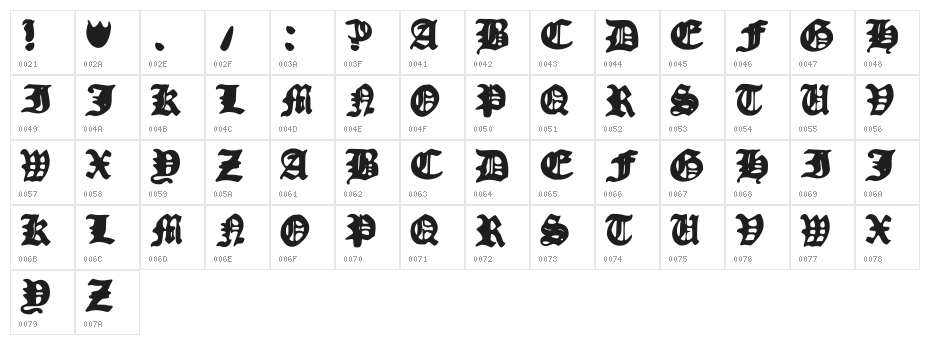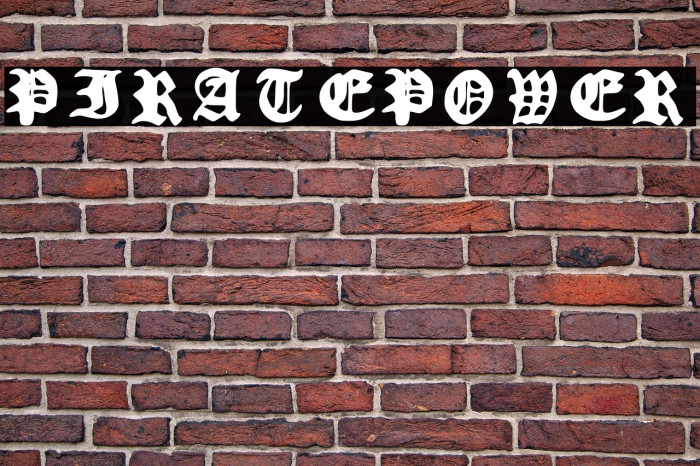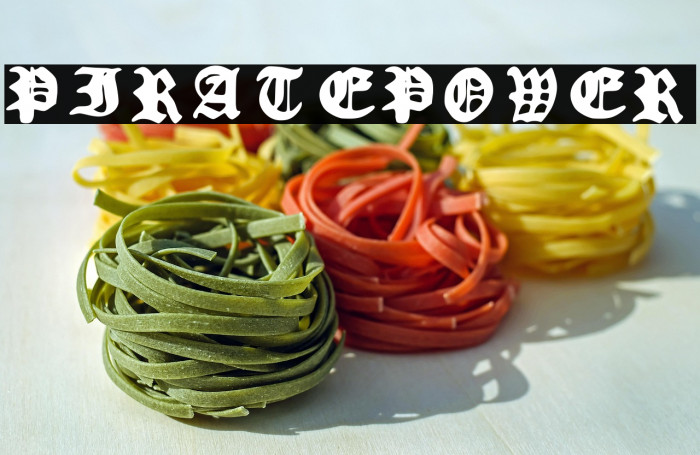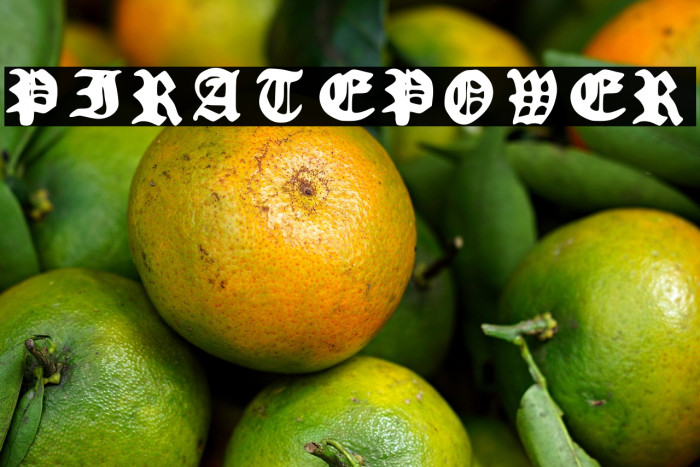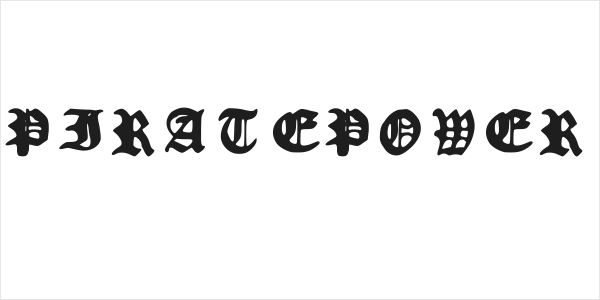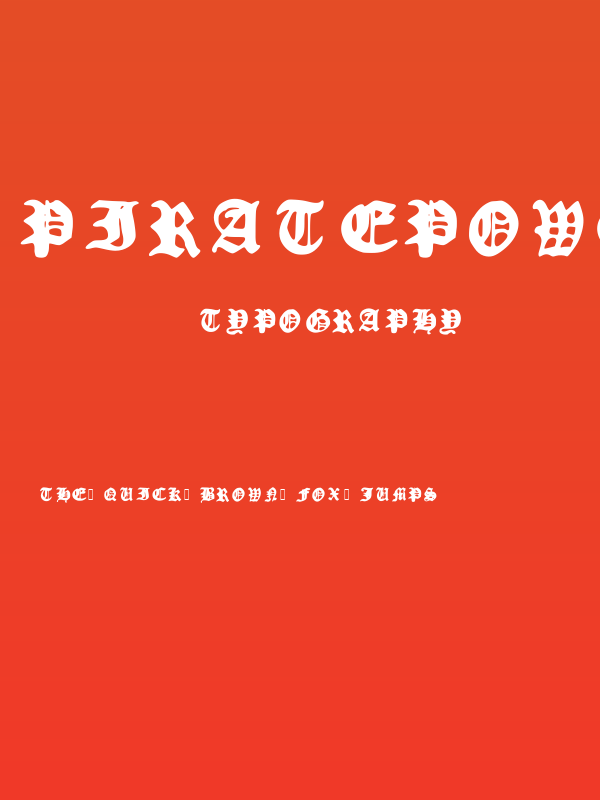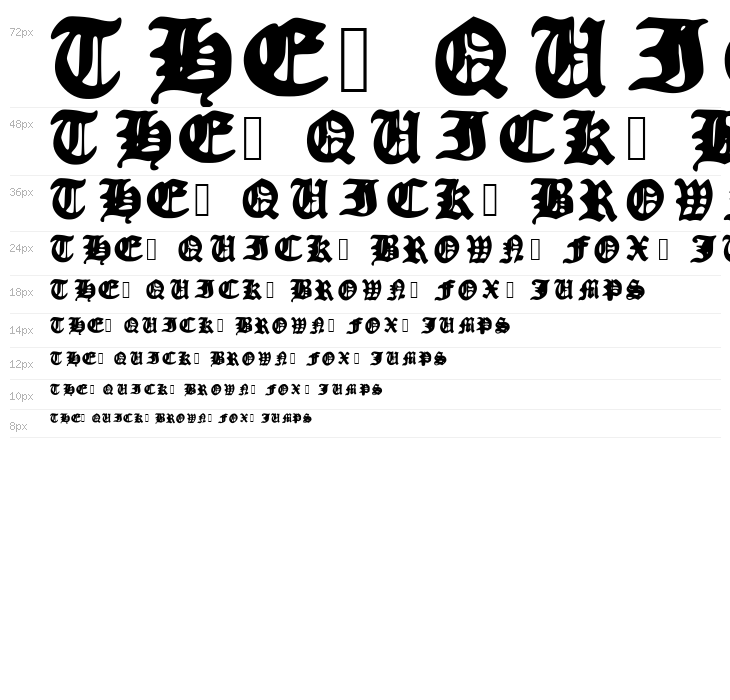
PiratePower Font
PiratePower Description
This font exudes a bold and adventurous spirit, reminiscent of classic pirate themes. The characters are designed with intricate details, featuring sharp edges and dramatic curves that evoke a sense of mystery and excitement. The uppercase letters are particularly striking, with ornate flourishes that add a touch of elegance to the rugged style. The lowercase letters maintain the same level of detail, ensuring consistency throughout the typeface. The numbers and special characters are equally well-crafted, making this font versatile for various applications. Its unique style is perfect for projects that require a touch of the dramatic and the historical, capturing the essence of pirate lore.
| Proposed Projects | Ideal for themed posters, book covers, event invitations, and branding that requires a historical or adventurous touch. |